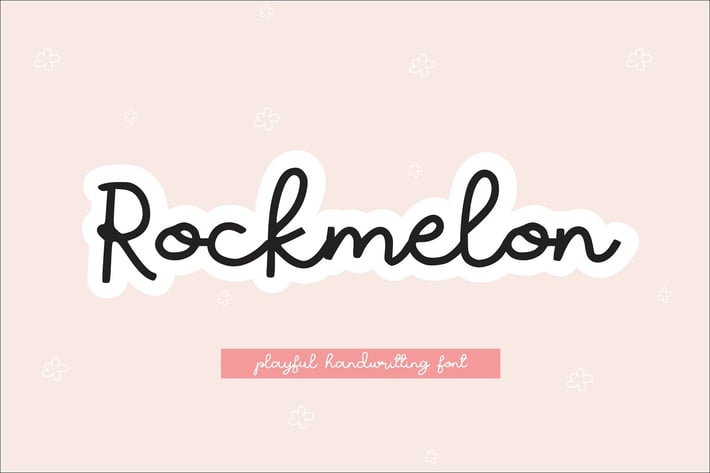
Rockmelon - Playful Handwritting Font
Rockmelon - Playful Handwritting Fontt, every single letter has been carefully crafted to make your text looks beautiful. it's perfect for cricut, sublime, tshirt, logos, name cards, magazine layouts, invitations, headers, or even large-scale artwork.
- Rockmelon font including upper & lowercase characters, numerals and more of symbols.
Rockmelon - Playful Handwritting Fontt, every single letter has been carefully crafted to make your text looks beautiful. it's perfect for cricut, sublime, tshirt, logos, name cards, magazine layouts, invitations, headers, or even large-scale artwork.
- Rockmelon font including upper & lowercase characters, numerals and more of symbols.